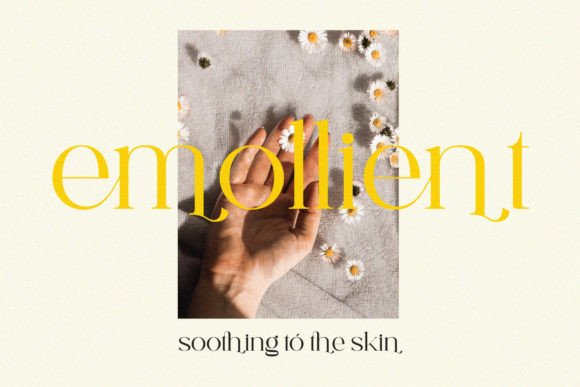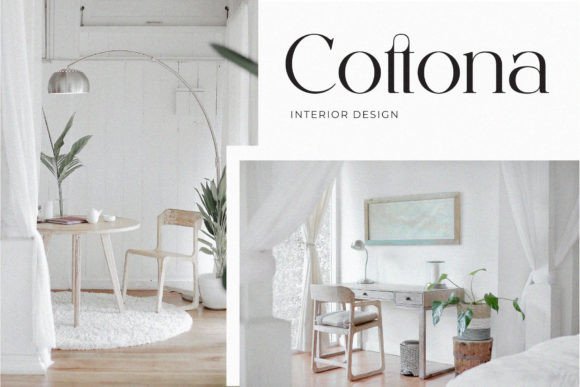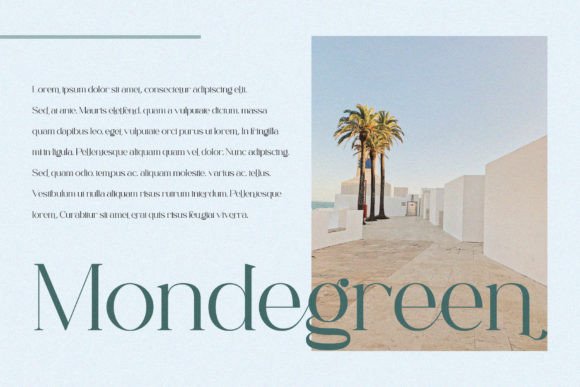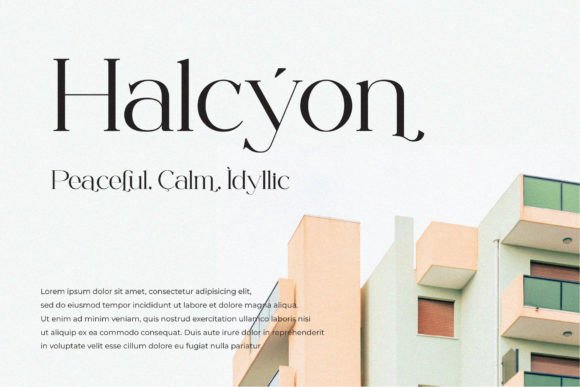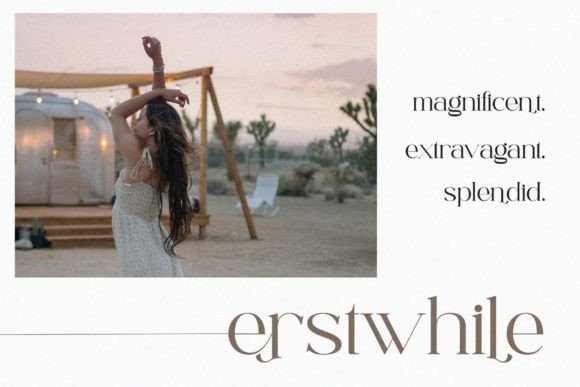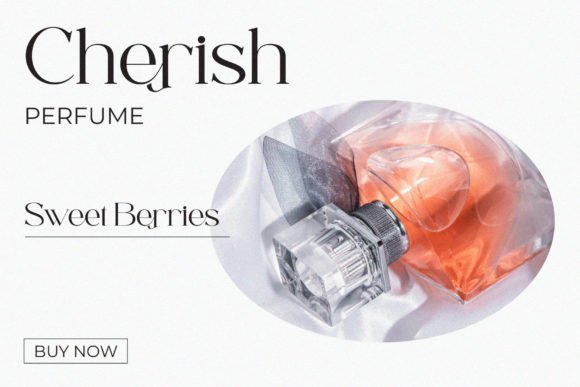
Introduction to Gathen Font
Have you ever stared at a blank canvas, waiting for inspiration to strike, only to find your creativity stuck in neutral? For designers, this moment can be frustrating, but it’s also an opportunity to discover new resources that can elevate our work. For me, that moment came when I stumbled upon the elegant Gathen Font.
Gathen Font is a beautiful serif typeface that exudes sophistication and minimalism. Its clean lines and refined details make it perfect for a wide range of creative projects, from designing templates and brochures to crafting videos and advertising branding. Whether you’re a seasoned pro or a design student, Gathen Font is a valuable resource that can help you achieve high-quality results.
With its transparent background and versatile design, Gathen Font is available for free download, making it an excellent addition to any design arsenal. In this article, we’ll explore the features and benefits of Gathen Font, and how it can help you take your creative projects to the next level.
Key Features of Gathen Font
- Unique, hand-drawn design perfect for creative projects requiring a personal touch.
- High-quality design resource featuring a transparent background for seamless integration.
- Includes 6 font styles with corresponding glyphs, offering versatility in design applications.
- Perfect for use in design projects where a whimsical, artistic feel is desired.
Honest Review: Gathen Font
As a designer, I’m always on the lookout for high-quality design resources to enhance my creative projects. The Gathen Font has been a recent addition to my toolkit, and I’m excited to share my honest review with you.
- Transparent background: The font’s transparent background makes it easy to use as a design element, adding depth and visual interest to my projects.
- High quality: The font’s high quality is evident in its crisp lines and smooth typography, making it perfect for use in various design contexts.
- Limited font styles: The Gathen Font is available in a limited number of styles, which may not be ideal for designers who require a wide range of font options.
- No bold or italic variants: Unfortunately, the font does not offer bold or italic variants, which may limit its use in certain design situations.
Overall, I’m impressed with the Gathen Font’s high quality and versatility. While it may have some limitations, it’s a great addition to any designer’s toolkit, especially for those on a budget. I’d definitely recommend it for use in creative projects that require a clean and modern aesthetic.
For optimal results, use the Gathen Font in conjunction with other high-quality design resources. Experiment with different font sizes, colors, and combinations to achieve a unique look. Additionally, consider using the font on a transparent background to create a sleek and modern design.
The Gathen Font is suitable for a variety of creative projects, including logos, business cards, and infographics. Its high quality and transparent background make it an excellent choice for presentations, documents, and websites.